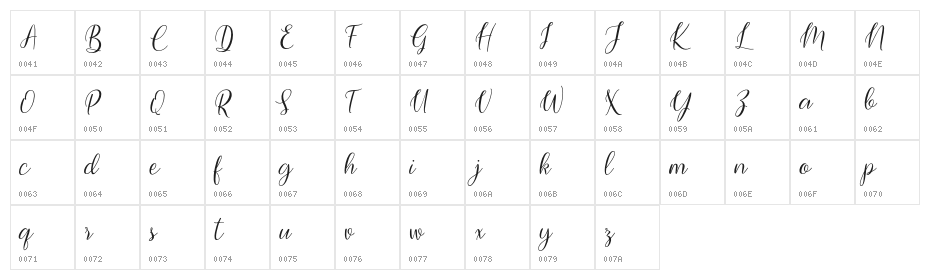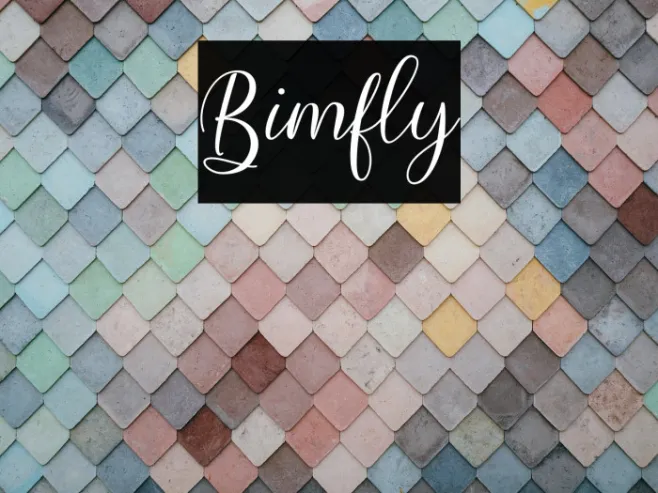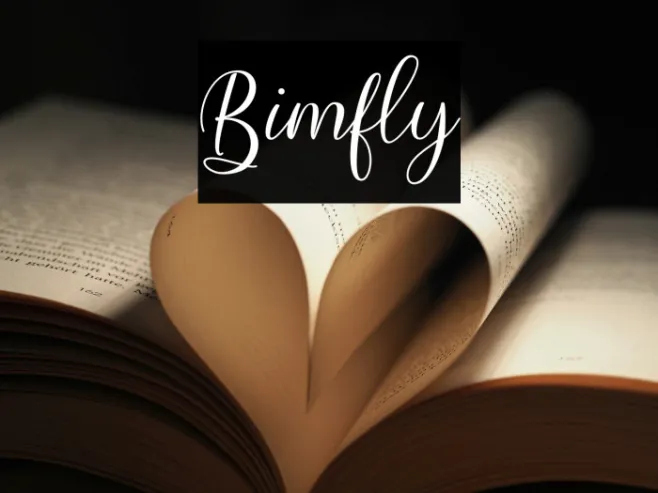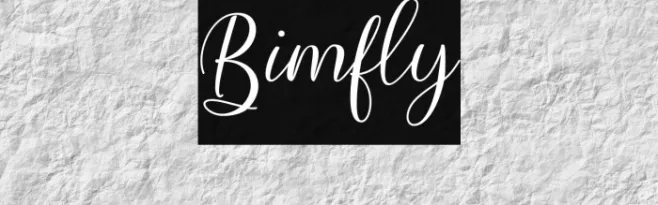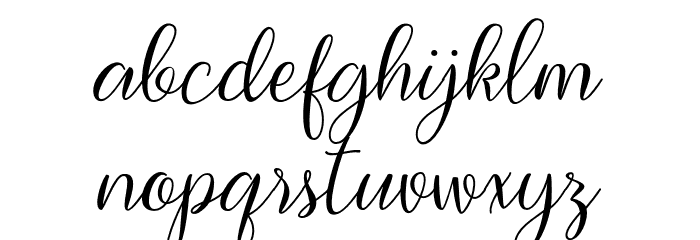
Bimfly Font
Bimfly Description
This elegant script font features flowing, cursive letterforms with a graceful and sophisticated appearance. The characters are interconnected, creating a seamless and fluid look. The strokes vary in thickness, adding a dynamic and lively feel to the text. The uppercase letters are ornate and decorative, while the lowercase letters maintain a consistent style with gentle curves and loops. This font exudes a sense of elegance and refinement, making it suitable for formal and decorative applications.
| Proposed Projects | Ideal for wedding invitations, elegant branding, greeting cards, and decorative signage. |